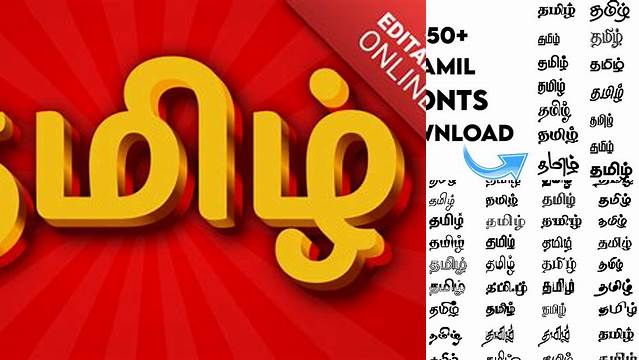
Tamil Font Generator: Stylish Text For Your Designs
Are you ready to jazz up your Tamil text? Do you want to make your social media posts, graphic designs, or any other content stand out? Well, look no further! This comprehensive guide explores the fascinating world of Tamil Different Fonts Generator, offering you the tools and knowledge to transform your ordinary text into something extraordinary. Get ready to dive deep into various fonts, their uses, and how to make the most of them. Let's get started, shall we?
H2: Unleashing the Power of Tamil Fonts: Why Use a Generator?
Alright, guys, let's talk about why you'd even need a Tamil different fonts generator. In today's digital world, standing out is everything. Think about it: you're scrolling through your feed, and a wall of plain text just blends in, right? But a cleverly designed font? That grabs your attention! A Tamil different fonts generator empowers you to do just that. It's like giving your words a superpower. You can use a generator for a whole bunch of reasons! Maybe you're a content creator looking to make your posts pop. Perhaps you're designing a poster or a website, or simply want to add some flair to your social media updates. The right font can convey a feeling, set a tone, and ultimately, connect with your audience on a deeper level. Tamil different fonts generator is your secret weapon! Different Tamil fonts can help create various moods. A bold, strong font might be perfect for a headline that needs to command attention, while a softer, more elegant font could be just right for a wedding invitation or a thoughtful quote.
Moreover, using a Tamil different fonts generator shows you're paying attention to detail. It signals that you care about the presentation of your work and that you're willing to go the extra mile to make it look its best. This attention to detail can be a big plus, whether you're promoting a business, sharing your artwork, or just trying to get your message across. The right font is also critical for readability. Some Tamil fonts are designed to be easy on the eyes, while others are more decorative. A good generator will offer a variety of fonts, allowing you to choose one that's not only visually appealing but also easy for your audience to understand. A Tamil different fonts generator is also incredibly easy to use. Most of these generators are simple to navigate: you just type in your text, and they spit out options in a range of different fonts. You can copy and paste these into any document or design software. You won't need to be a typography expert to use a generator. Finally, the choice is yours! You don't have to stick to boring, standard fonts. You can create visually stunning Tamil text and use that text anywhere. A Tamil different fonts generator gives you the freedom to experiment and find the perfect look for your content, helping you to stand out and make a lasting impression.
H2: Exploring the Best Tamil Font Styles: A Font for Every Occasion
Alright, so you're ready to dive into the world of fonts, but where do you start? Don't worry; we'll help you find the best. With a Tamil different fonts generator, you'll have many font styles. Understanding the various styles can help you choose the perfect one for your needs. Firstly, there are the classic, timeless serif fonts. These fonts have little decorative strokes, or serifs, at the end of each letter. They often look professional and are great for long-form text as they improve readability. Think of them for formal documents, book chapters, or websites with lots of text content. Then, there's the sans-serif font. These are fonts without serifs and are known for their clean, modern look. These are often preferred for headlines, social media posts, and user interfaces because they are easy to read at a distance.
Next, we have the display fonts. They are more decorative and artistic and designed to grab attention. They are often used for titles, logos, and posters, where you want the text to stand out. The script fonts, which mimic handwriting, can add a personal and elegant touch, perfect for invitations or quotes. Consider different variations, which will allow you to choose a style that best suits your project. Each style has its nuances, so it's worth experimenting to see what works best. Many generators also let you customize your fonts by changing the size, color, and other elements. This is the part where your creativity comes to life! You can also use several Tamil fonts within the same project. It can be the difference between a great design and a memorable one. Each font style will have different benefits, which can change the feel of your work and even draw in more readers. So, what are you waiting for? Start with a Tamil different fonts generator, and explore! You will make something incredible.
H2: How to Use a Tamil Font Generator: Step-by-Step Guide
Okay, so you're ready to create your own stylized Tamil text, but you're not sure where to start. No worries! Using a Tamil different fonts generator is generally straightforward. Here's a step-by-step guide to get you started and help you with the generation of different Tamil fonts.
- Choose Your Font Style: Now, the fun begins! Browse through the different font styles offered by the generator. You'll probably see a preview of your text in each font, which allows you to find the perfect one. The generator will show you a visual representation of what your text will look like.